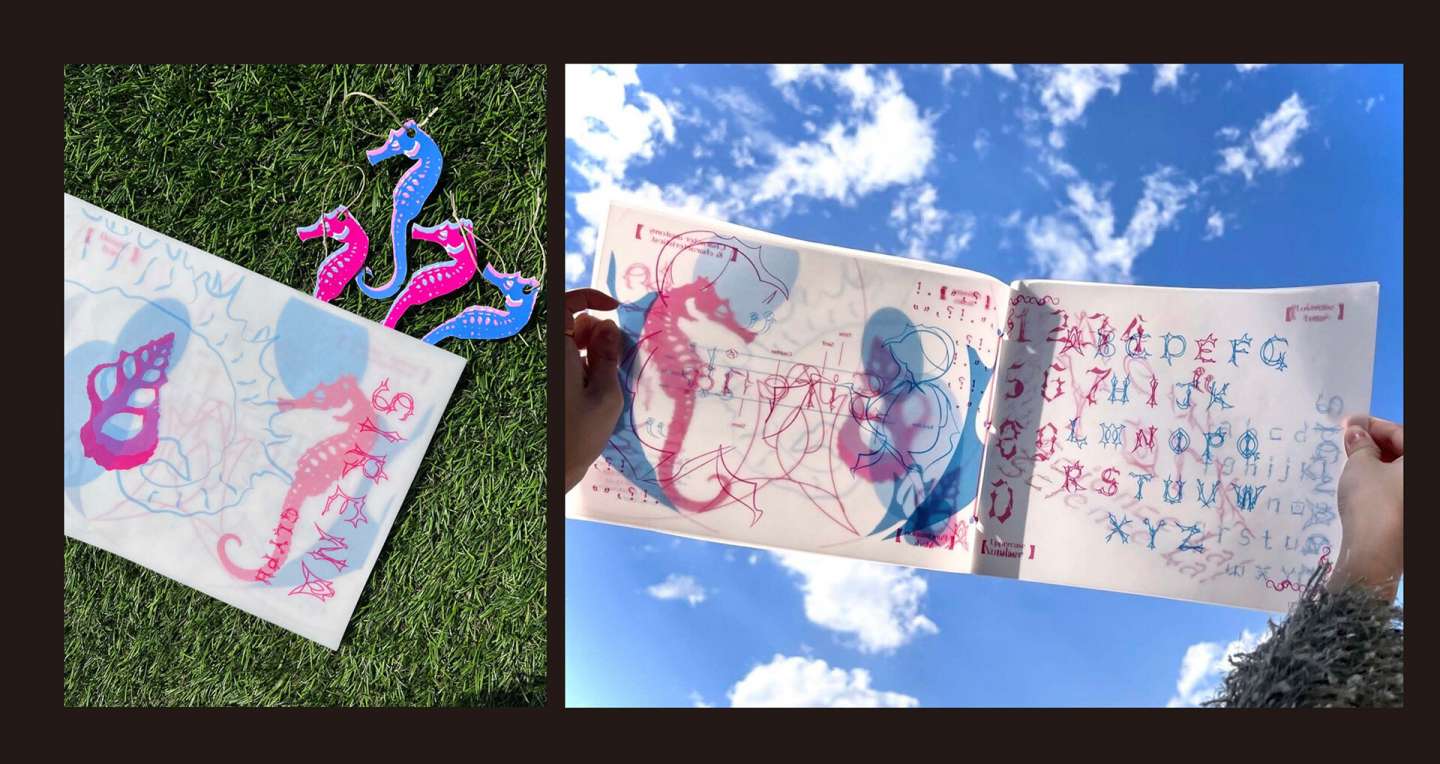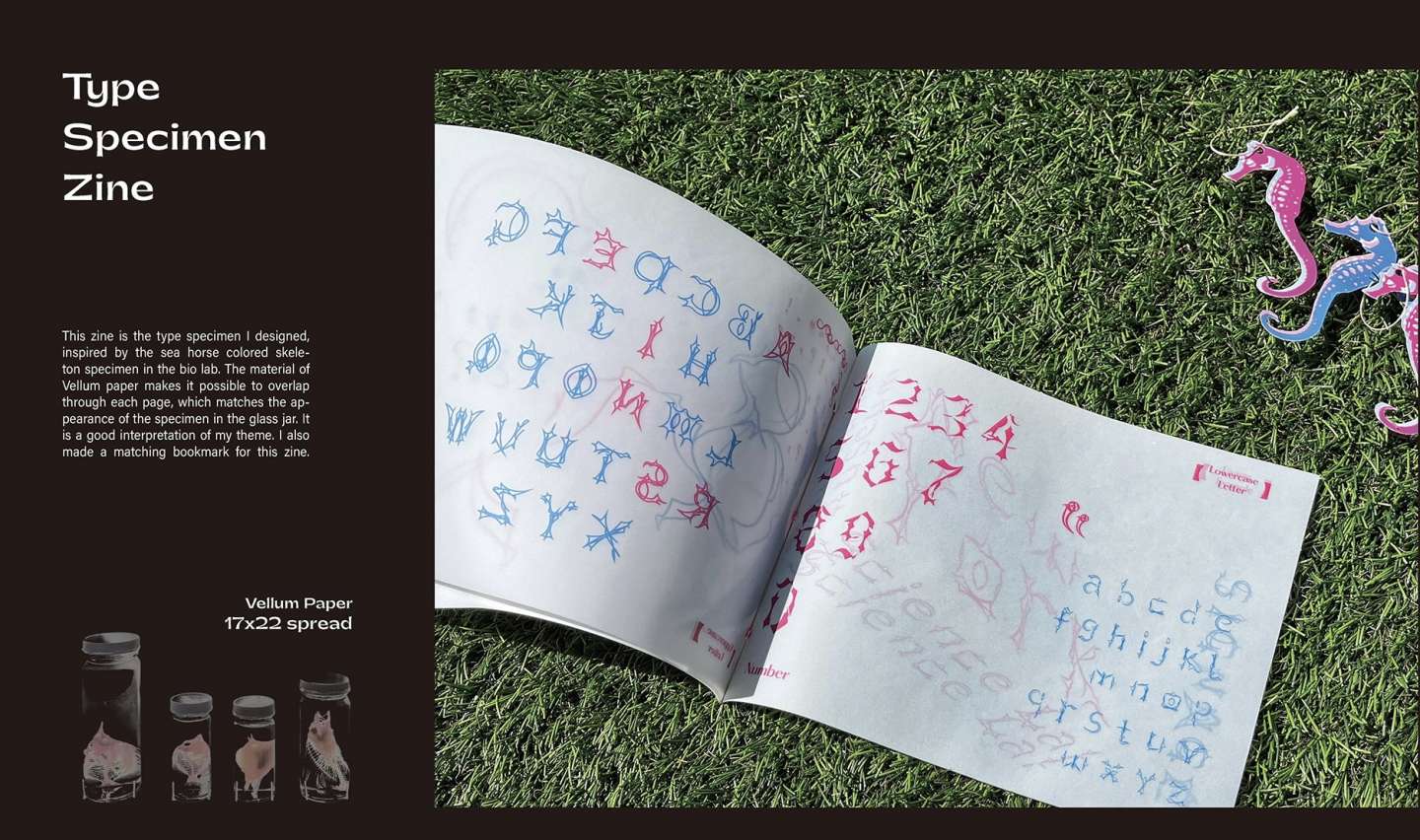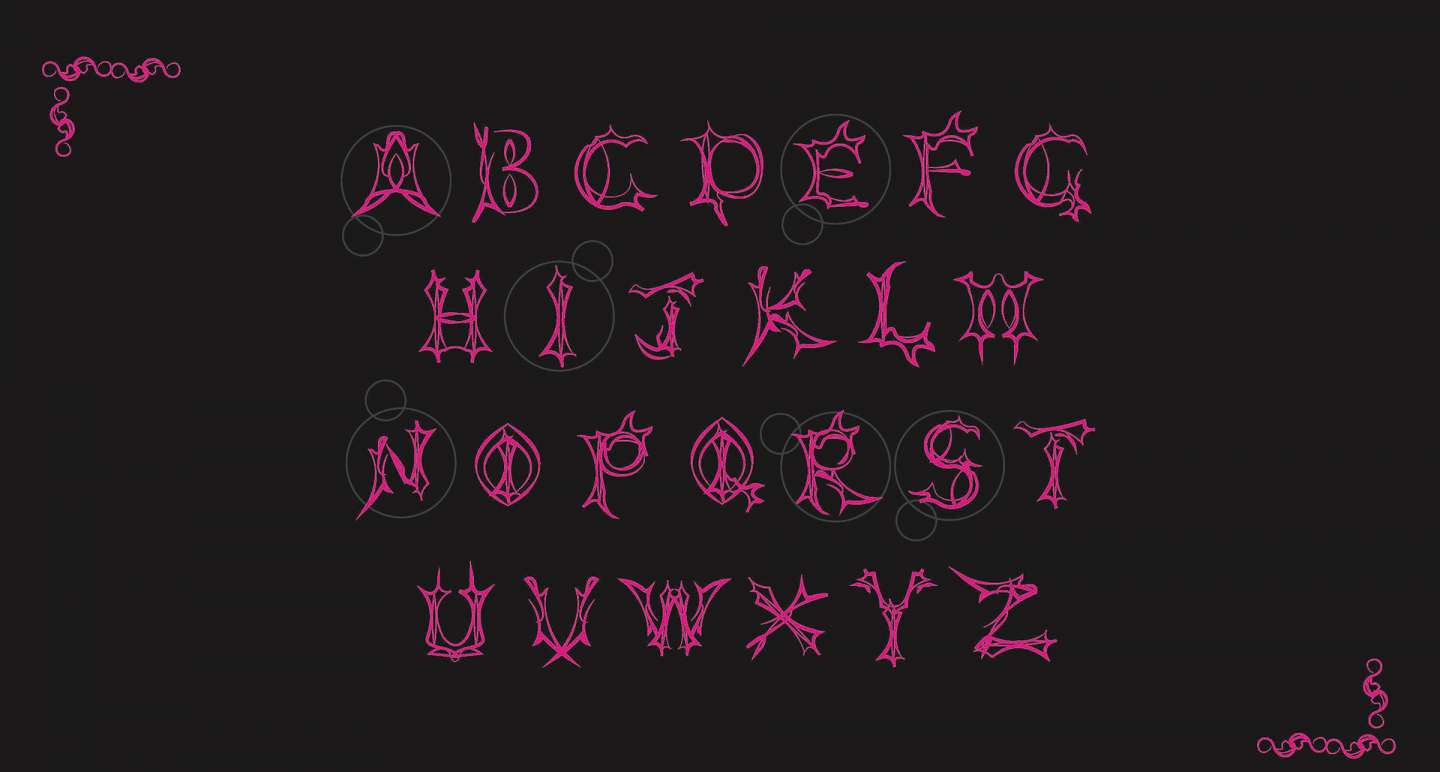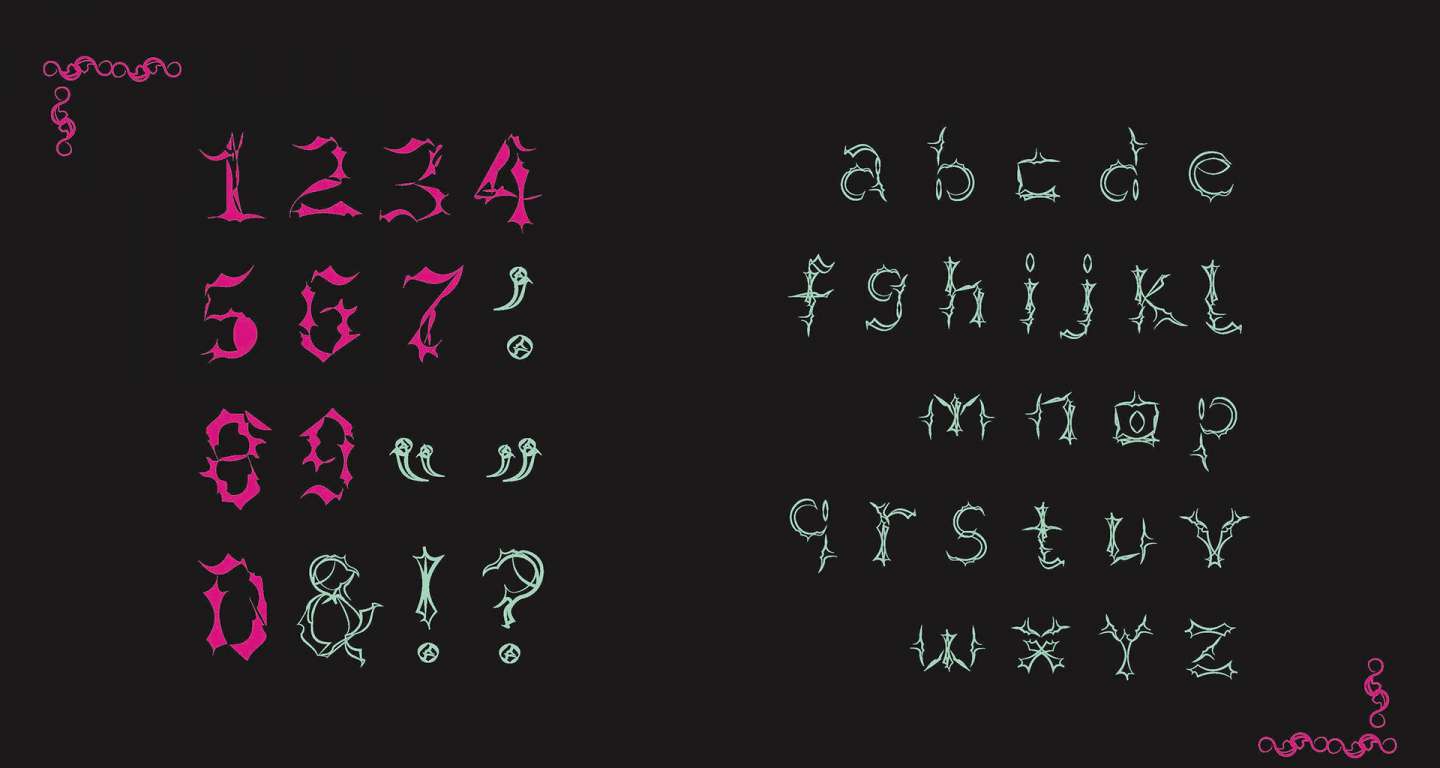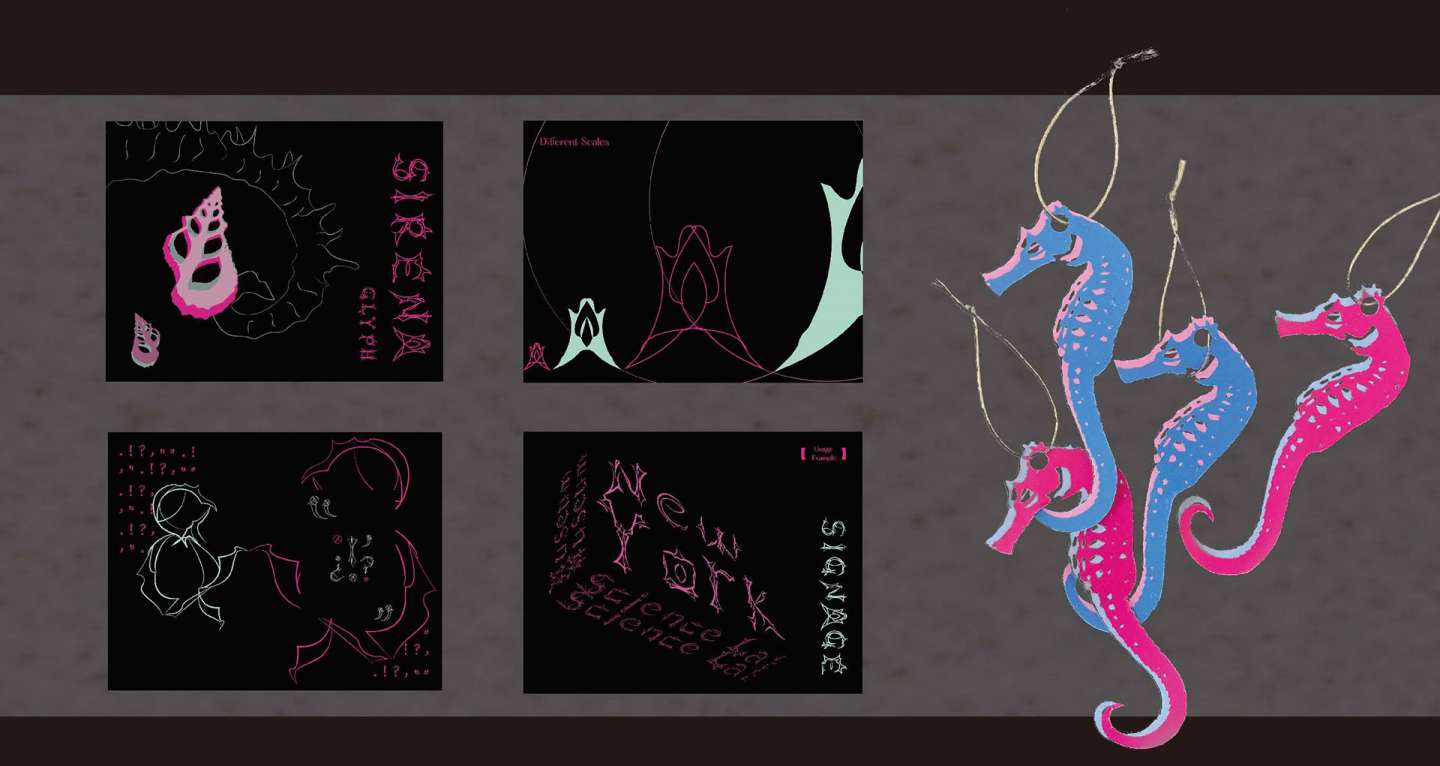
Sirena Glyph is an experimental typeface developed for the New York Museum of Science Lab. Drawing inspiration from stained animal bone specimens—especially the skeletal structure of seahorses—the project transforms organic forms into a Gothic-influenced typographic system. By combining anatomical references with sharp serifs and high-contrast structures, the typeface evokes a sense of fragility, tension, and ornamentation, bridging scientific imagery with expressive typography.